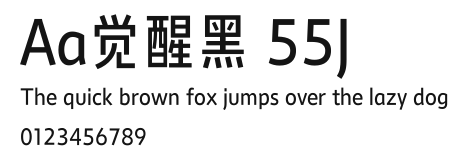
• Font Name: Aa觉醒黑 55J
• Designer: Aa
• Manufacturer: 翰美互通(厦门)科技有限公司
• Description: AaJueXingHei 55J is a fantastic font with excellent features designed for user interfaces and electronic communications.
About Aa觉醒黑 55J.ttf
Aa觉醒黑 55J.ttf is a modern, elegant sans-serif font designed for ultimate readability and visual harmony. Perfect for branding, headlines, web design, and print materials.